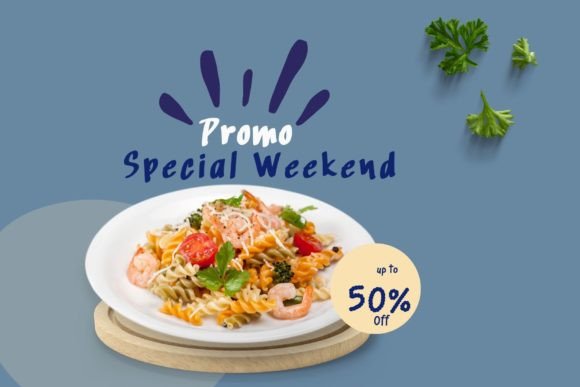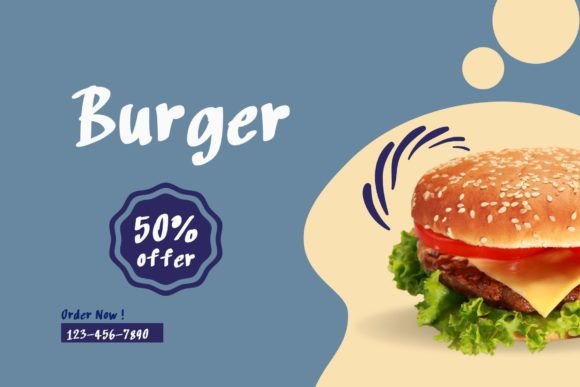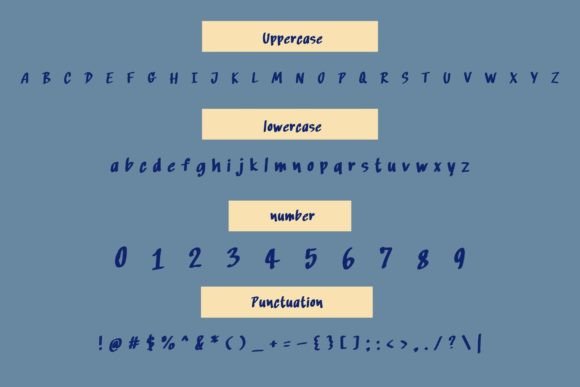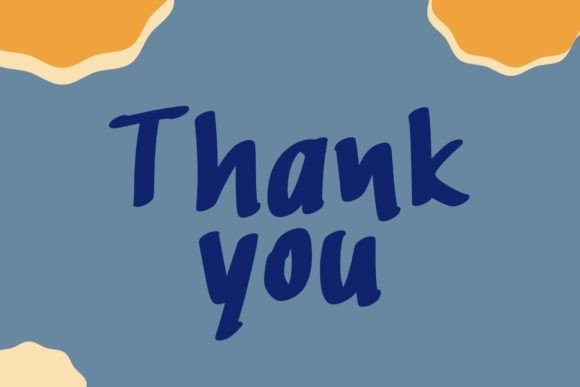
The Perfect Dose of Whimsy: Discovering the Joy of Foolish Font
Have you ever stared at a blank page, longing to bring a design to life, but struggling to find the right words to express your creative vision? That’s exactly how I felt last week when I was working on a new project. I wanted to infuse my design with a sense of playfulness and authenticity, but nothing seemed to fit the bill. That’s when I stumbled upon the charming Foolish Font.
This adorable handwritten font is a designer’s dream come true. Not only does it add a touch of whimsy to any project, but it’s also incredibly versatile. From logos and branding to invitations and photo albums, the Foolish Font is the perfect choice for bringing your creative ideas to life.
- Unique Characteristics: The font features a distinctive, playful aesthetic with a mix of rounded and angular shapes, making it well-suited for creative and whimsical applications.
Foolish Font Review
Overall, I’m quite impressed with the playful nature of Foolish Font. ✨ Its quirky and whimsical style adds a fun touch to any design project. The font is perfect for creating eye-catching headlines or titles that grab attention.
- Expressive and creative feel that sets it apart from more traditional fonts
- Wide range of applications, from advertising to editorial design
- Highly customizable, allowing for easy adjustments to color and size
- May not be suitable for body text due to its playful and irregular shape
- Can be difficult to read at smaller font sizes
- Some users may find the font too flashy or over-the-top
Despite its limitations, Foolish Font is a great addition to any designer’s toolkit. It’s perfect for projects where you want to make a bold statement and add some personality to your design.
For the most effective use of Foolish Font, try pairing it with bold or italic text to create a striking contrast.
Use Foolish Font sparingly to add emphasis to key messages or headings.
Experiment with different font sizes and colors to create visual interest.
Foolish Font is perfect for:
Creating playful and eye-catching headings.
Add a touch of whimsy to your branding or marketing materials.
Highlighting important information or calls to action.